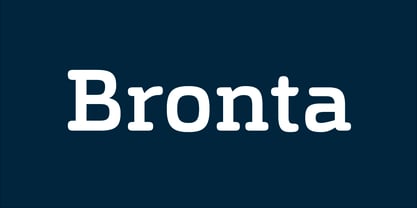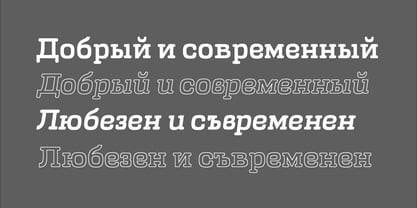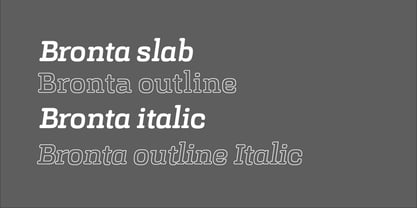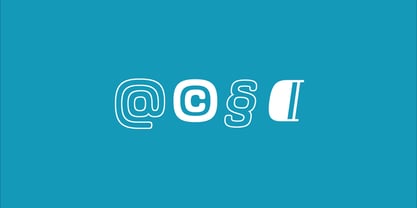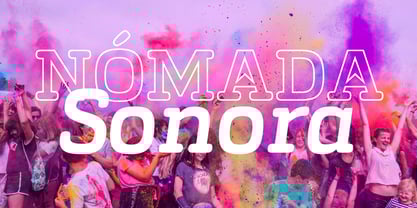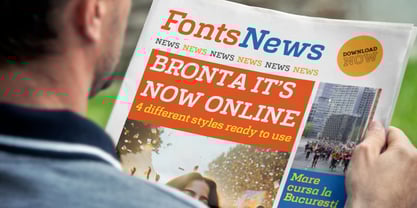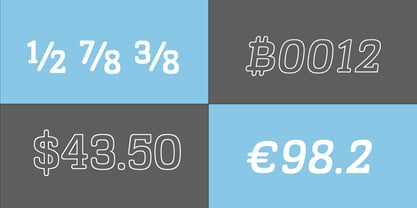
Bronta Slab
The Bronta Slab Font Family was designed by Carlos Candray and published by CentroType. Bronta Slab contains 4 styles and family package options.
Bronta Slab is a contemporary slab serif typeface with a strong personality and versatile structure. Designed for impactful headlines, editorial layouts, branding, and packaging, Bronta blends geometric confidence with warm humanist details. It supports both Latin and Cyrillic scripts, making it ideal for multilingual projects across a wide range of global contexts.
Available in four expressive styles—including Outline and Italic—it adapts beautifully to diverse creative needs. Whether you're building a bold brand or designing a stylish publication, Bronta Slab delivers clarity, charm, and punch in every letterform.